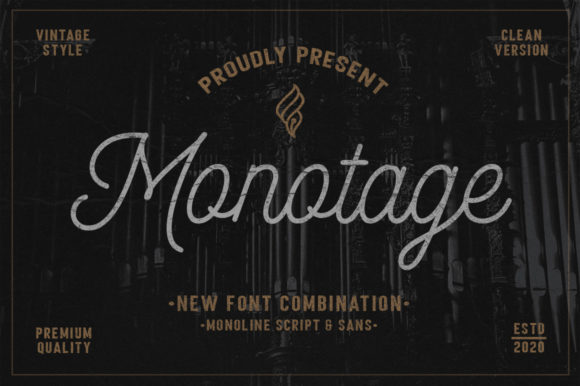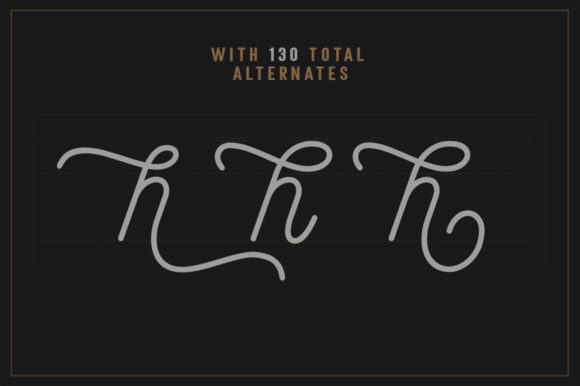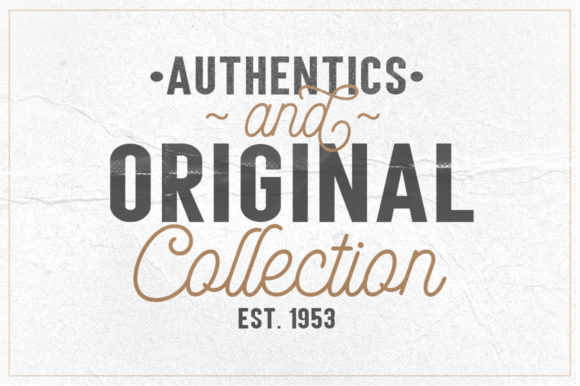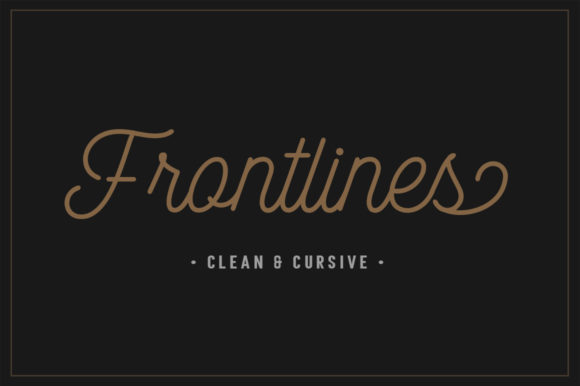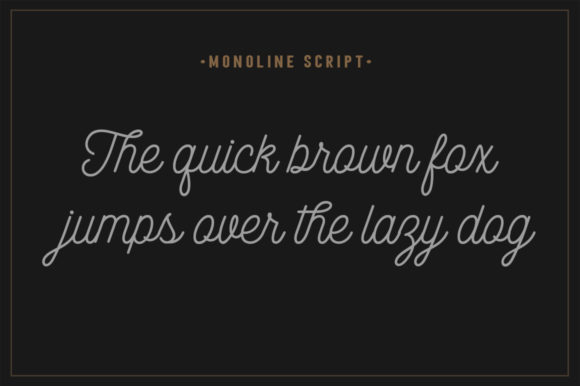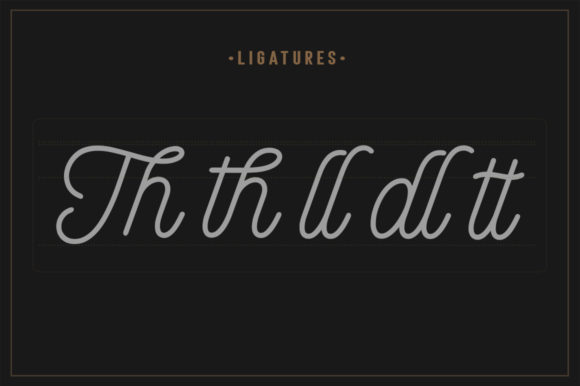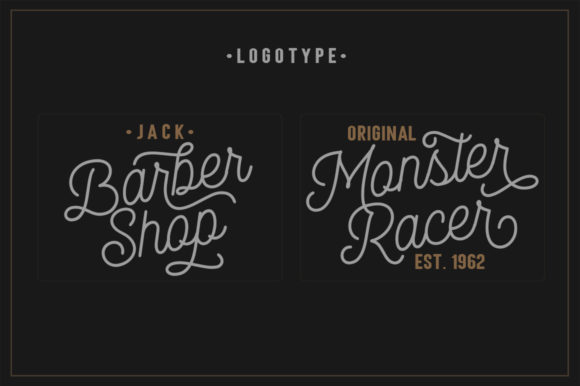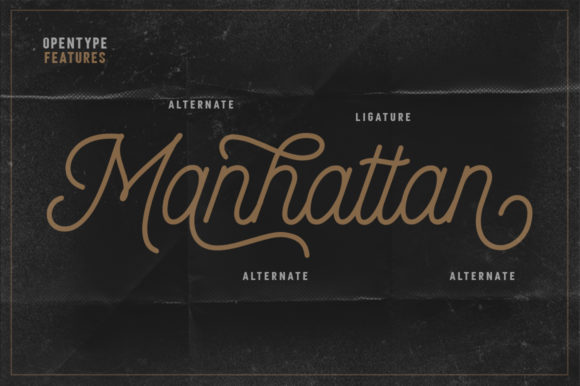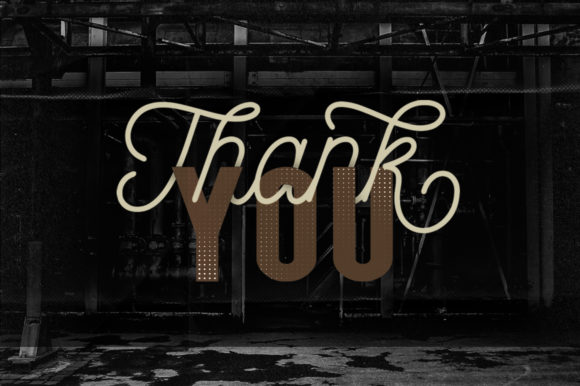
Monotage Font
About Monotage Font
Monotage is a great duo font. It features a modern monoline script style with a strong sans serif. Combining these two fonts on your next design will give an outstanding look and feel.
It will elevate a wide range of design projects to the highest level, be it branding, headings, wedding designs, invitations, signatures, logos, labels, and much more!